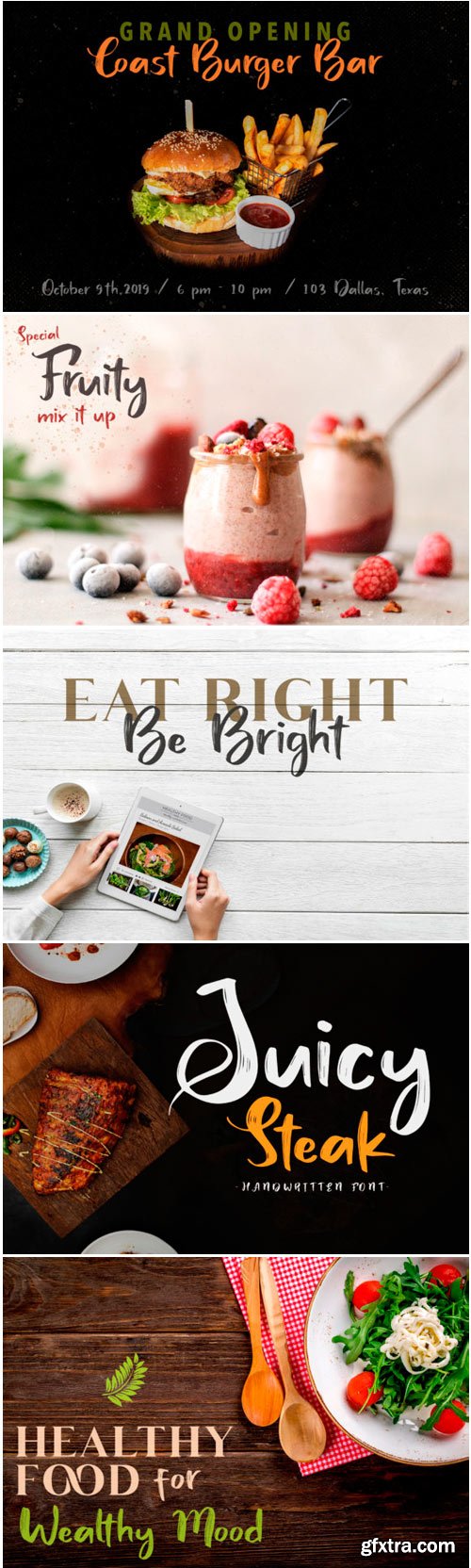
Juicy Steak Font
The Juicy Steak is an amazing handwritten script. It was based on the expressions of real handwriting and lets you transform type into an exciting and beautiful piece of work. The irregular, hand-lettered look adds a real human touch to things and comes along with a lot of loving details.